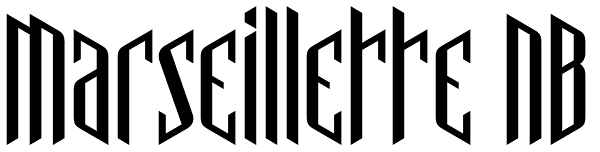
Marseillette NB
These four typefaces, Berlinette NB, Lyonette NB, Marseillette NB and Parisette NB, were designed from the same basic shape, a fanciful geometric form that avoids strict horizontals and uses more offbeat triangular shapes. Marseillette is the nasty...